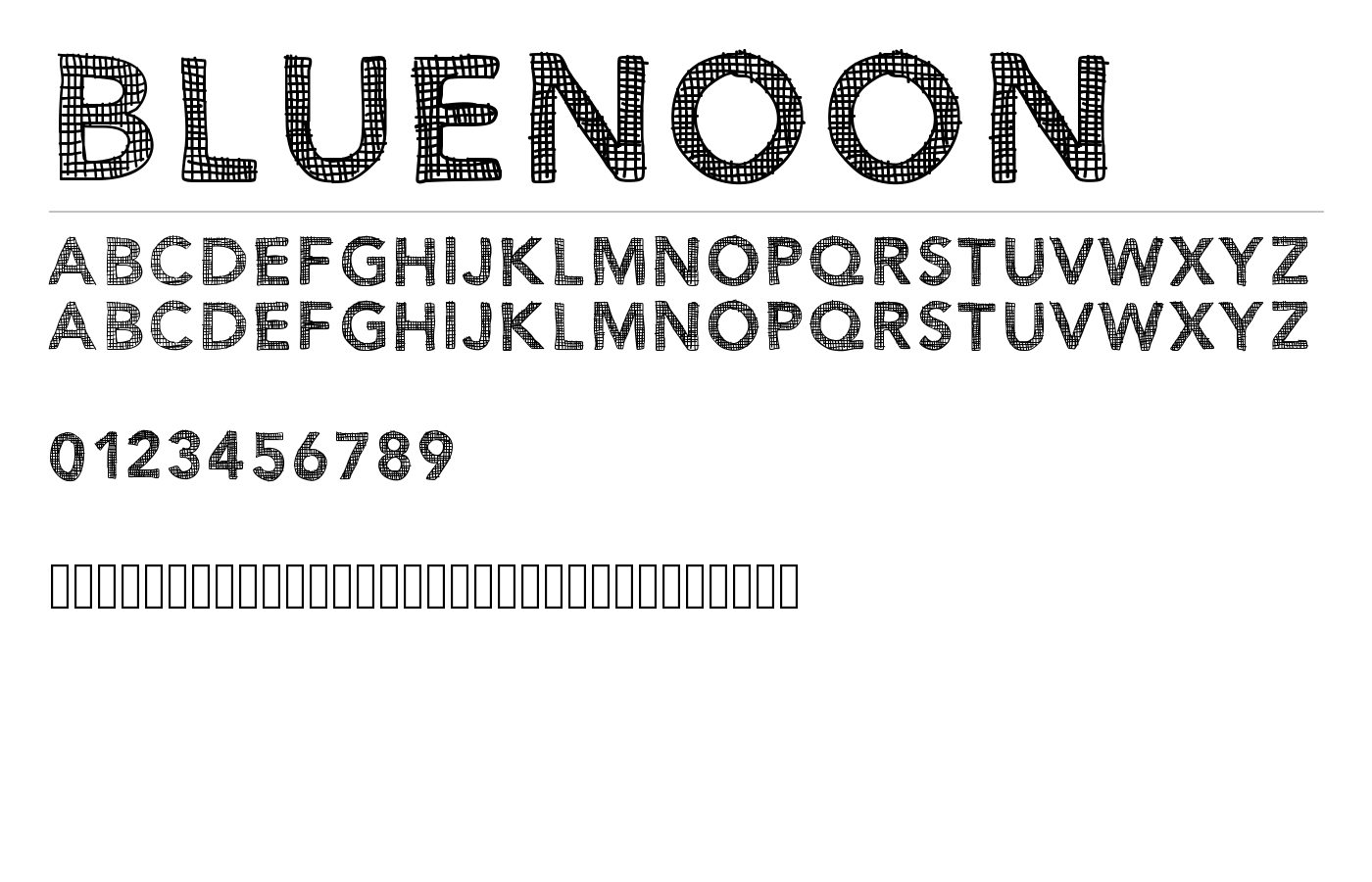
BlueNoon is a playful sans serif font with a hand-drawn, textured grid pattern that gives it a quirky and casual feel. Its bold, upright letterforms and consistent weight make it stand out, perfect for creative headlines, logos, and designs that need a friendly, informal touch. This font works well in projects that want to convey approachability and uniqueness while maintaining clear readability.
BlueNoon Font
About BlueNoon Font